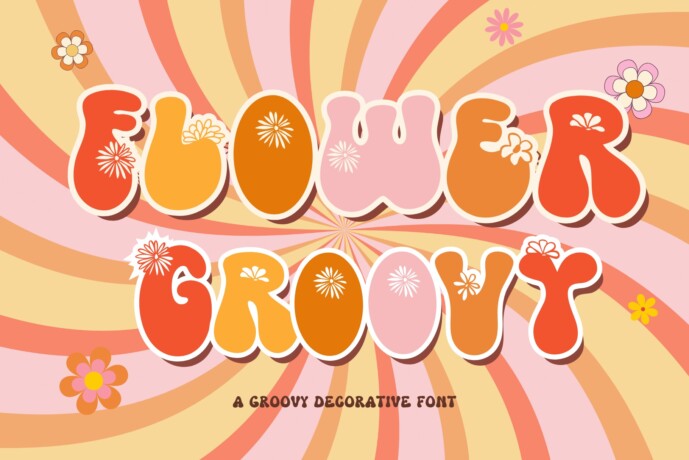
Flower Groovy Font
Designer: Pui Art
Flower Groovy font is cute and suitable for spring season with retro style. This font is bold, it offers support for all characters of the English language for display font.
It can be used for any design project posters, t-shirts, mugs, card, kid’s projects, planners, stickers, home decorative, etc.